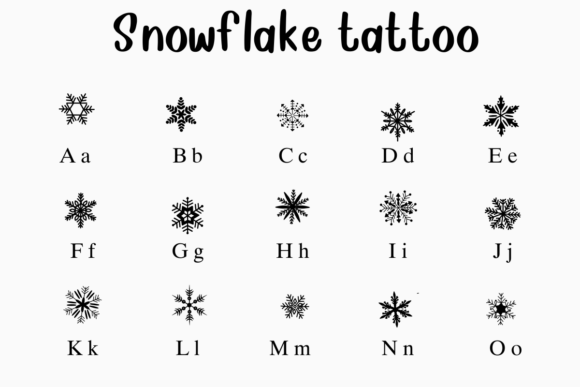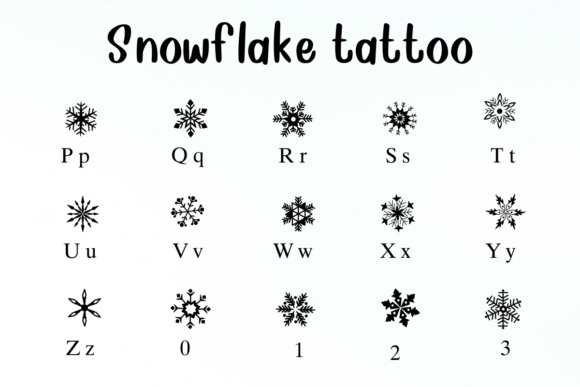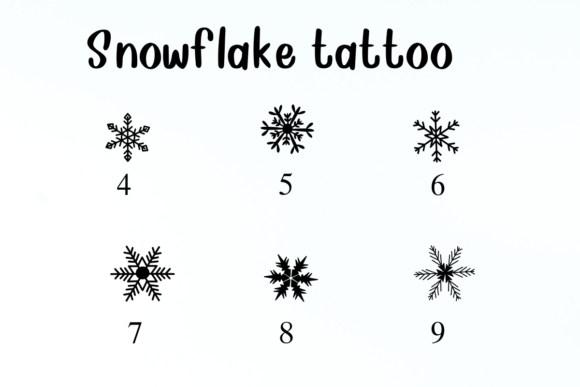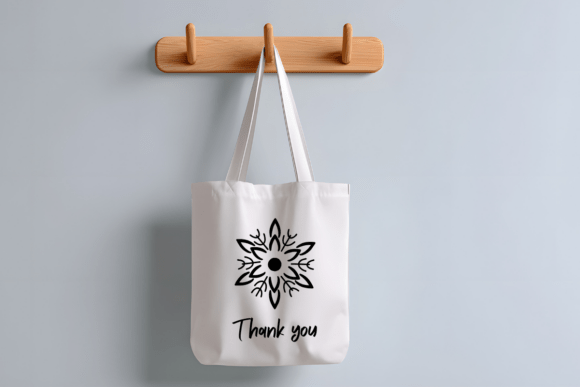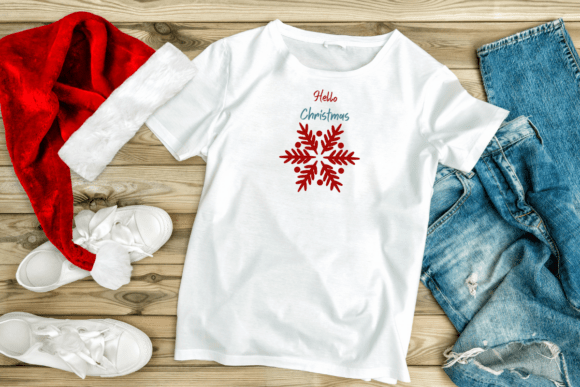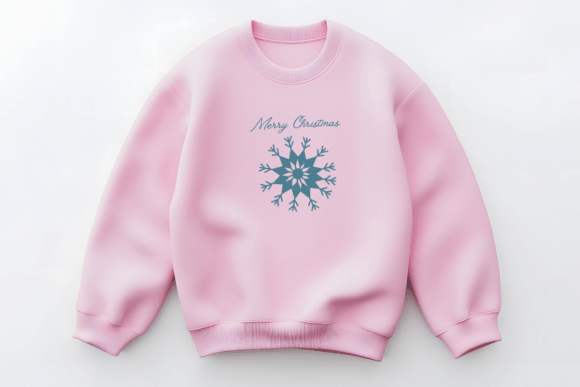
Introduction to Snowflake Tattoo Font
Snowflake tattoo decorative dingbat font captures the delicate beauty of snowflakes with striking precision, offering an elegant collection of intricate, high-contrast winter-inspired symbols.
Each snowflake design is crafted with sharp, clean lines and balanced symmetry, creating a refined yet playful tone that stands out in any creative project Perfect for holiday cards, festive branding, packaging, digital art, or tattoos, this versatile font adapts seamlessly to both minimalist and elaborate designs.
Key Features of Snowflake Tattoo Font
Why Choose Snowflake Tattoo Font?